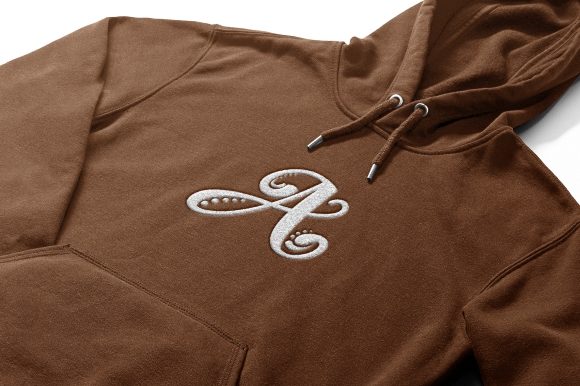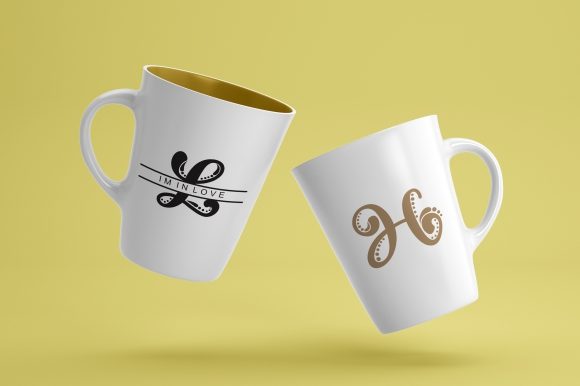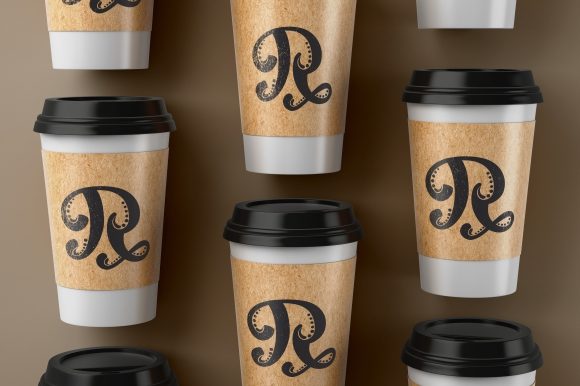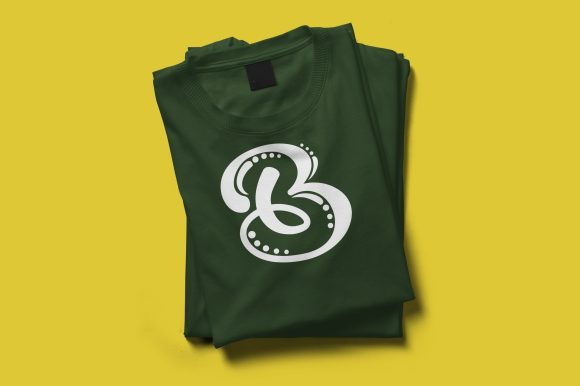
Introduction to Monogramus Font
Have you ever found yourself stuck in front of a blank design screen, searching for that perfect font to elevate your creative project? It’s a feeling many designers know all too well. But what if I told you there’s a font that can add a touch of sophistication and elegance to your designs, making them truly stand out from the crowd?
Enter the Monogramus Font, a classy decorative font that’s perfect for a wide range of creative projects. Whether you’re working on a logo, invitation, or social media post, this high-quality font is sure to impress. With its transparent background and versatile design, the Monogramus Font is a valuable resource for any designer looking to add a touch of luxury to their work.
Key Features of Monogramus Font
- High-quality, elegant design perfect for creative projects and presentations.
- Includes a range of customizable monogram styles and layouts to suit your specific design needs.
Honest Review: Monogramus Font
As a designer, I’m always on the lookout for high-quality design resources that can elevate my creative projects. The Monogramus Font is one such find that I’d like to share with you.
What works well with Monogramus Font is its versatility. It’s perfect for various design applications, from logos and branding to invitations and digital art. The font’s unique, elegant design style ✨ makes it a great addition to any creative project.
- Unique, elegant design style
- Perfect for logos, branding, invitations, and digital art
That being said, one limitation of Monogramus Font is its limited character set. While it’s a great choice for titles and headings, it may not be the best option for longer blocks of text. ⚠️
Overall, I’m impressed with Monogramus Font’s high quality and design versatility. It’s a great addition to any designer’s toolkit, and I’m excited to see how it can elevate my future creative projects.
The Monogramus Font is a high-quality design resource ideal for creative projects that require a touch of elegance and sophistication. With its unique and intricate designs, this font is perfect for personal and professional projects alike.
Tips for Getting the Most Out of Monogramus Font
Use the Monogramus Font on a transparent background to create a beautiful and eye-catching design.
Experiment with different font sizes and styles to add visual interest to your design.
Combine the Monogramus Font with other design elements, such as images and shapes, to create a unique and creative project.
Business cards and logos
Personalized gifts and mementos